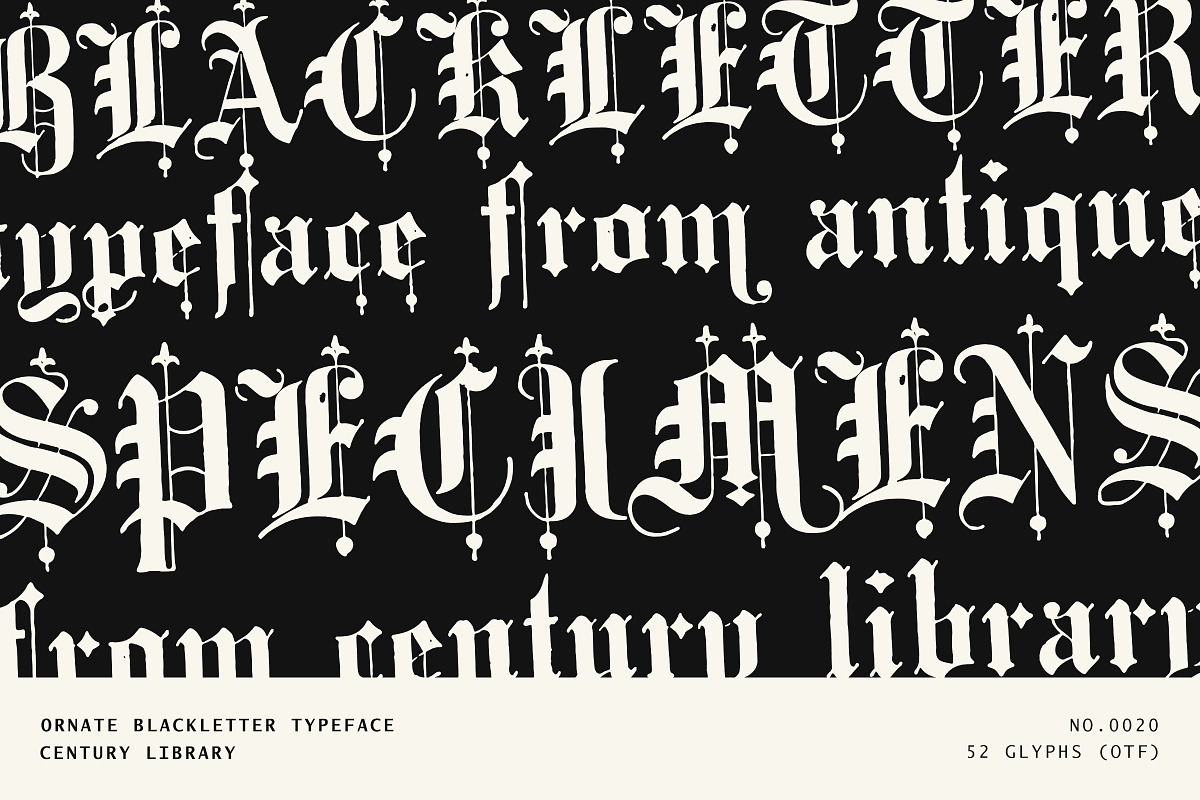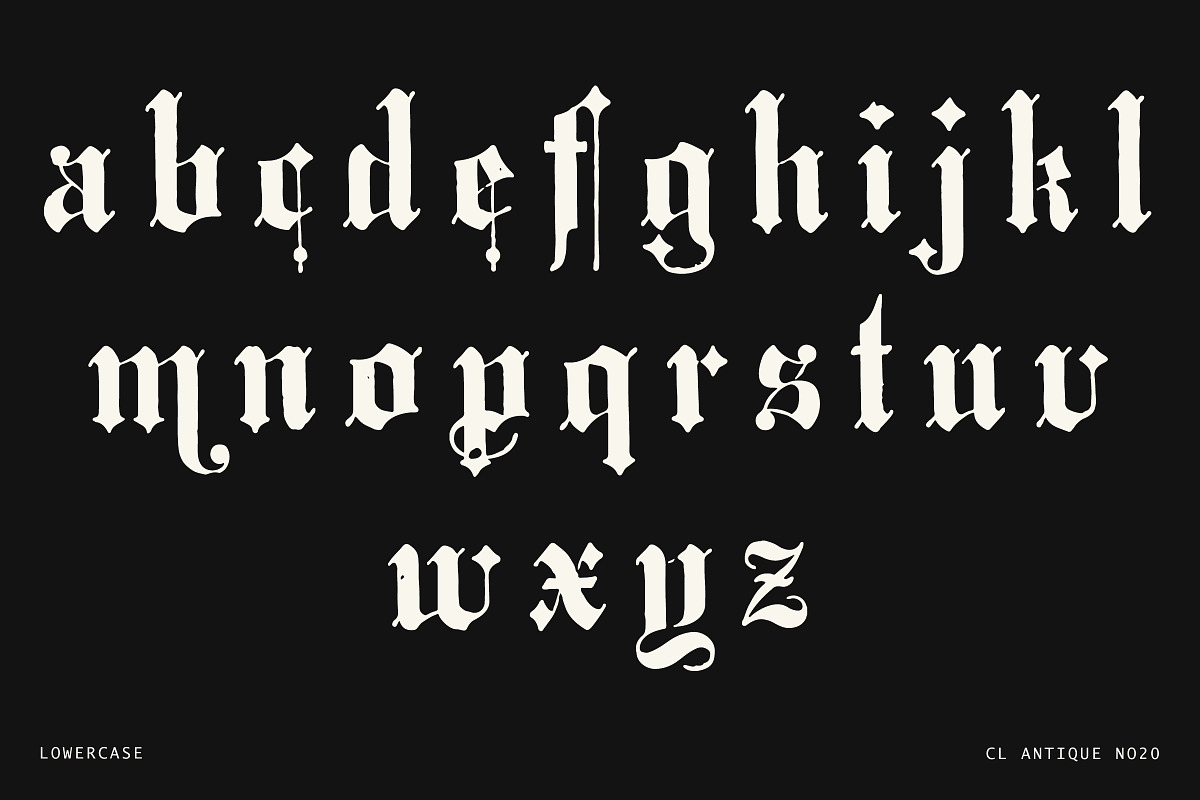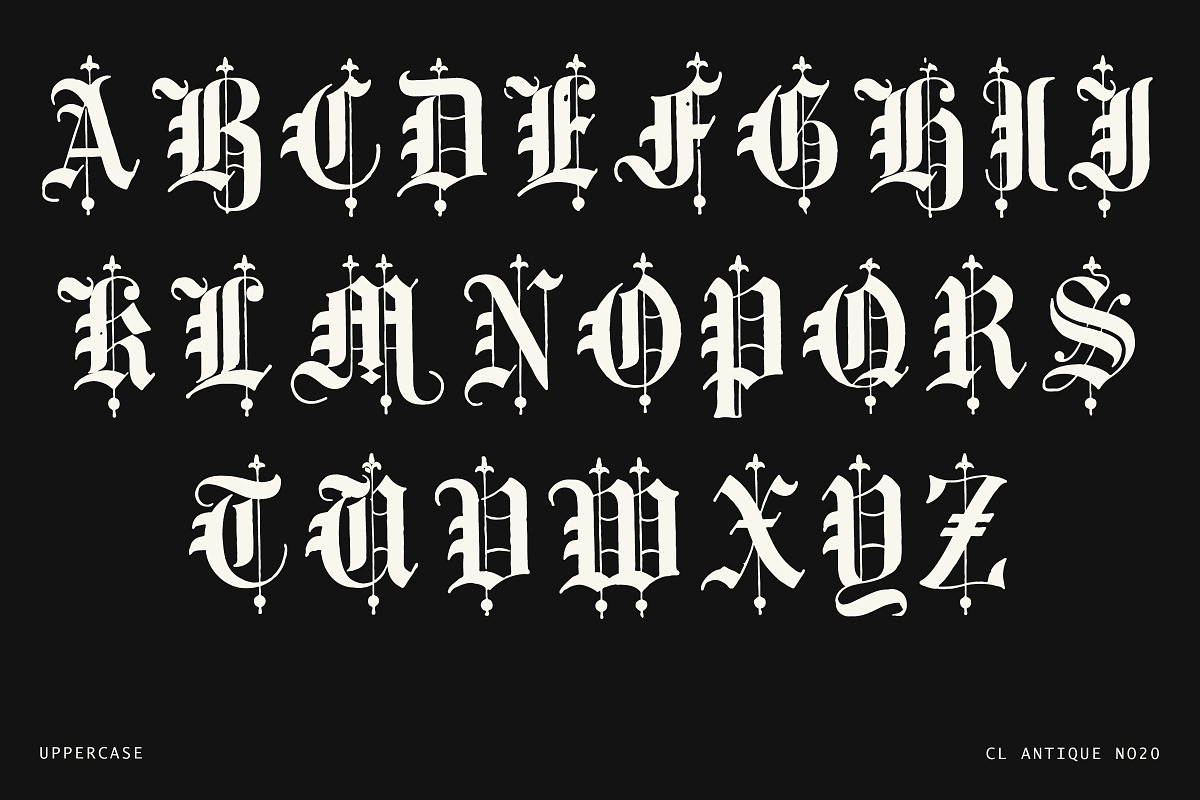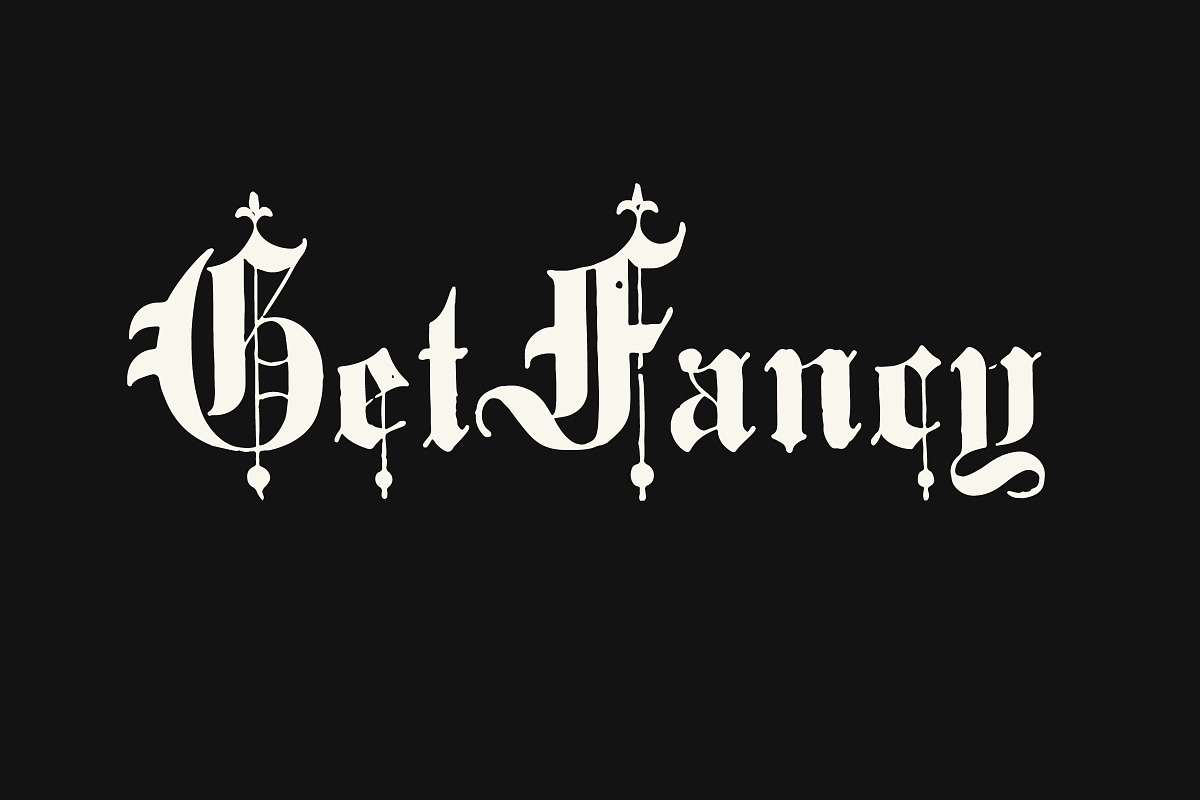
Ornate Blackletter Display Font
CL Antique No.20 is one of the more decorative entries in the Century Library collection - a bold blackletter face that embraces sharp angles, spiked terminals, and ornamental flourishes.
Every glyph is restored from antique type specimens and cleaned up just enough to make it usable while keeping the original charm and personality intact. No redraws, no over-smoothing - just a faithful revival of a beautifully embellished 19th-century blackletter.
It’s a great fit for anyone working on logos, gothic packaging, book titles, posters, or anything that needs that grand, heavy-metal-meets-Victorian vibe.